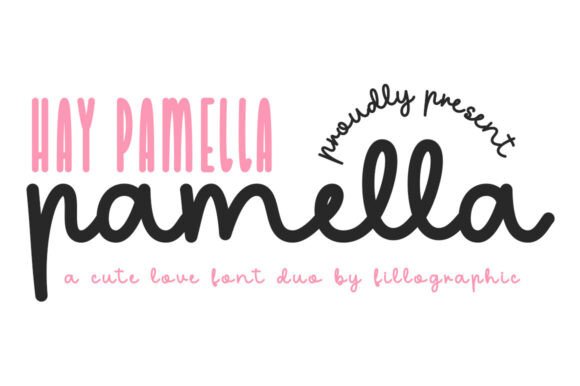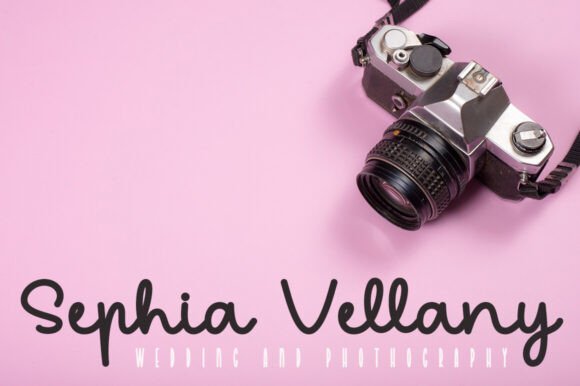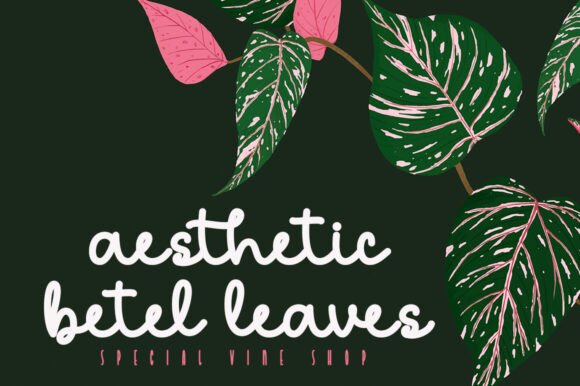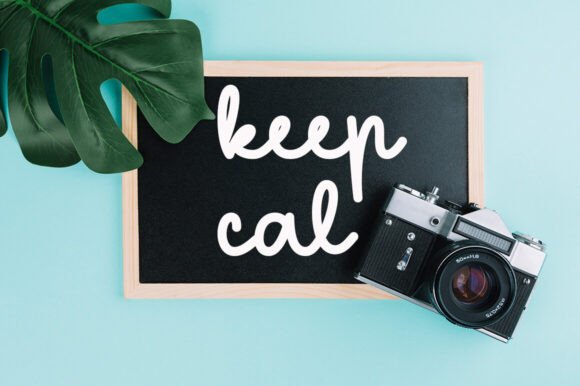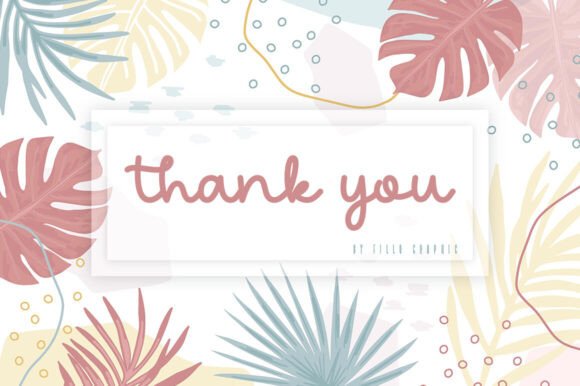
Introducing Hay Pamella Font: Elevate Your Crafts with Chic and Cheery Handwritten Style
Are you a designer or crafter looking for the perfect font to add a touch of elegance and playfulness to your projects? Look no further than Hay Pamella Font! This beautiful font set consists of two handwritten fonts designed to complement each other perfectly, making it an ideal choice for a wide range of creative endeavors.
The Perfect Pair: Two Handwritten Fonts in One
Hay Pamella Font is a unique and versatile font set that includes two distinct handwritten fonts. These fonts are carefully crafted to work together seamlessly, allowing you to mix and match them to create stunning visual effects. Whether you’re designing a logo, creating a social media graphic, or crafting a handmade card, Hay Pamella Font is the perfect choice.
Chic and Cheery: The Perfect Blend of Style and Whimsy
Hay Pamella Font is all about adding a touch of chic and cheery style to your crafts. The fonts feature a beautiful, flowing script that exudes elegance and sophistication. At the same time, the playful and whimsical touches add a dash of fun and personality to your designs. Whether you’re going for a classic and refined look or a more playful and modern vibe, Hay Pamella Font has got you covered.
One of the standout features of Hay Pamella Font is its PUA (Private Use Area) encoding. This means that you can access all glyphs and swashes with ease, giving you complete creative control over your designs. With PUA encoding, you can effortlessly insert special characters, ligatures, and other unique elements to take your designs to the next level.